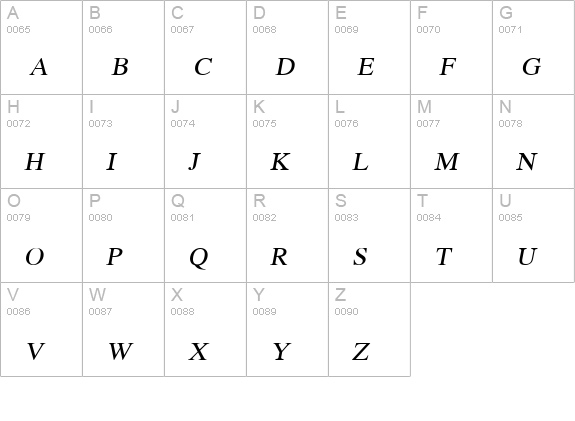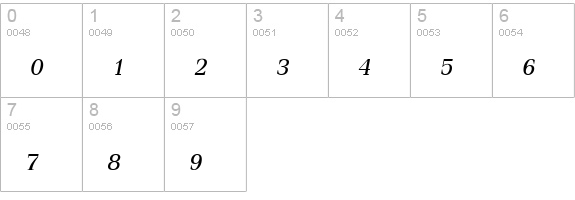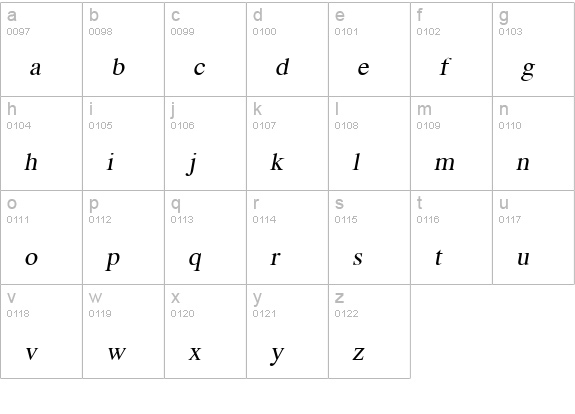
KodchiangUPC Italic Font Details
KodchiangUPC Italic is a distinctive, italic variant in the KodchiangUPC typeface family \xE2\x80\x94 well suited to design and typography projects.
KodchiangUPC Italic font is a sleek and modern typeface that exudes elegance and sophistication. With its slanted style and unique design, this font is perfect for adding a touch of flair to your projects. Whether you're designing a logo, creating a poster, or crafting a stylish invitation, KodchiangUPC Italic font will elevate your work to the next level. And the best part? It's completely free! That's right, you can download KodchiangUPC Italic font for absolutely no cost at FontsMarket.com. Don't miss out on this fantastic opportunity to enhance your designs with this stunning font. Download KodchiangUPC Italic font today and let your creativity soar!